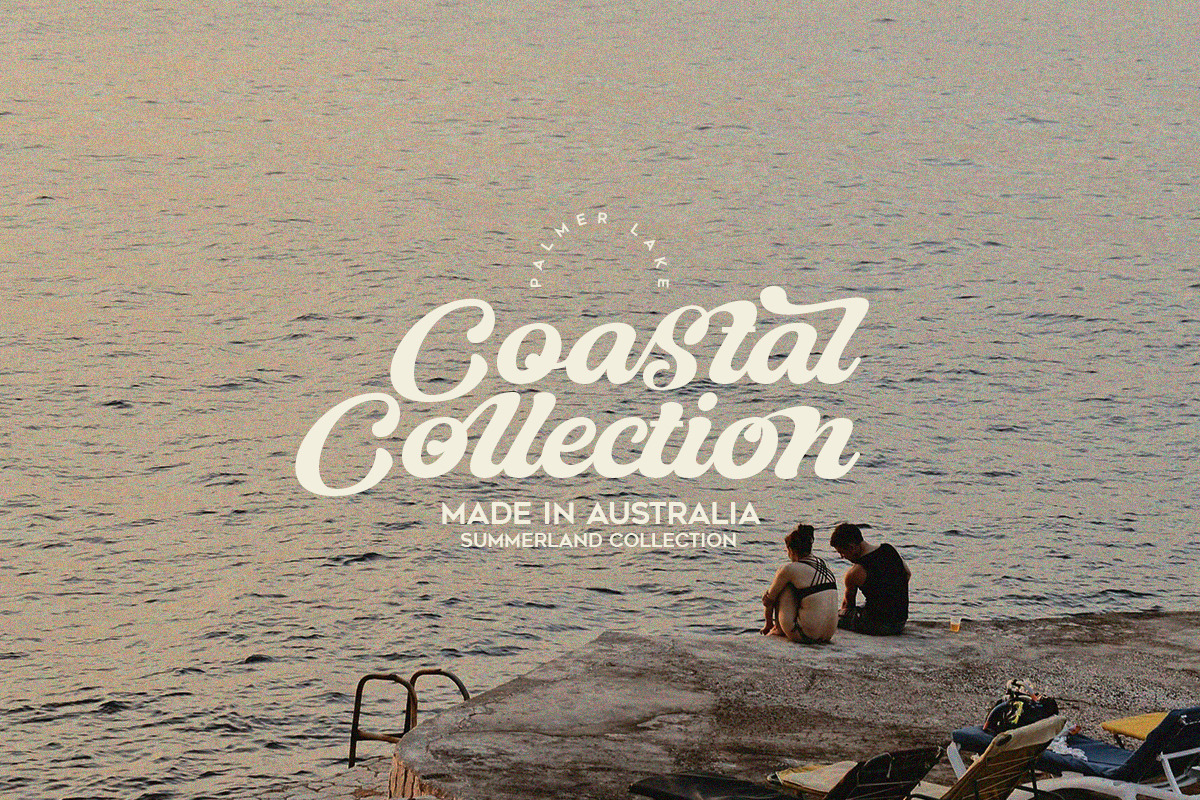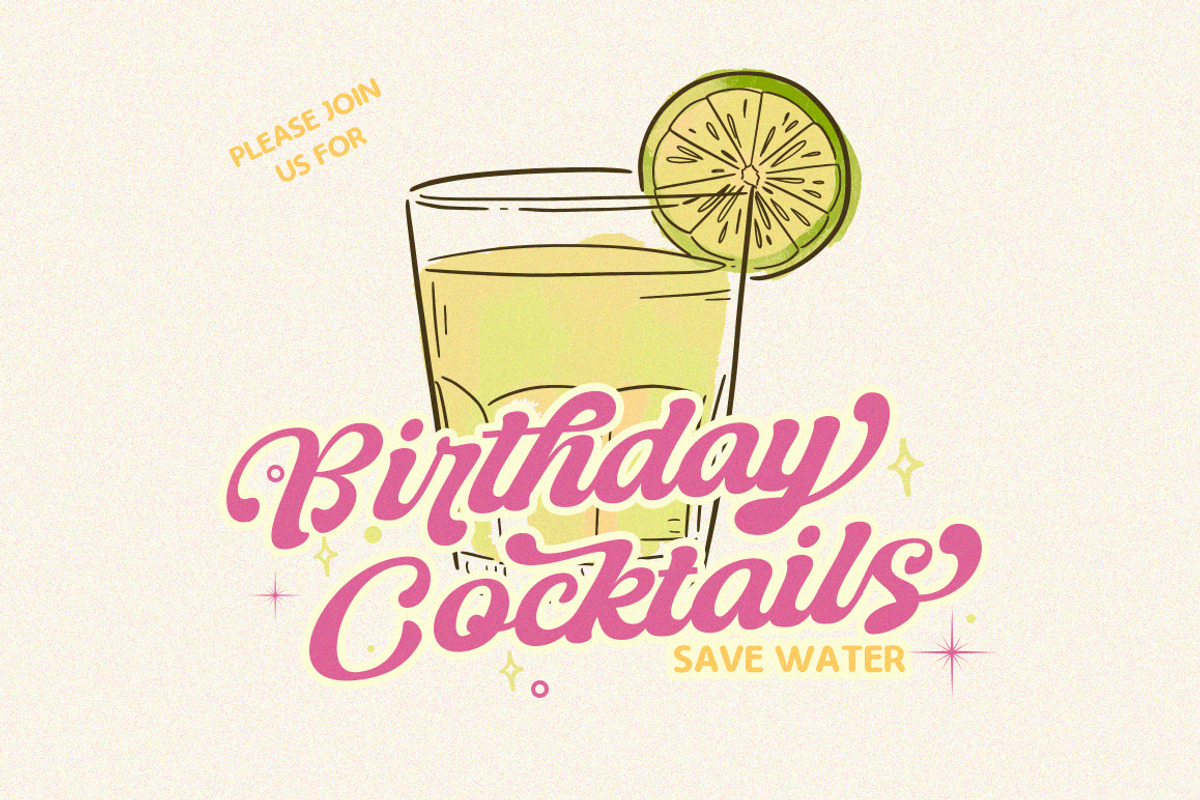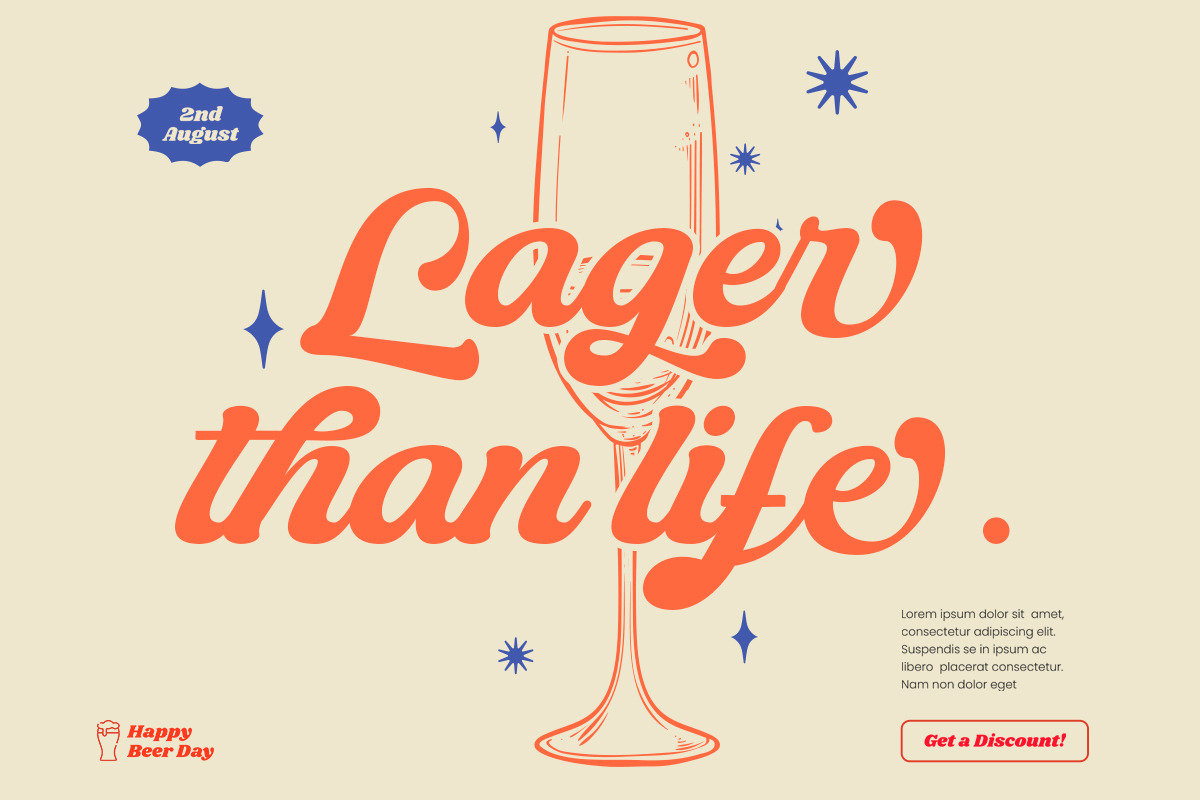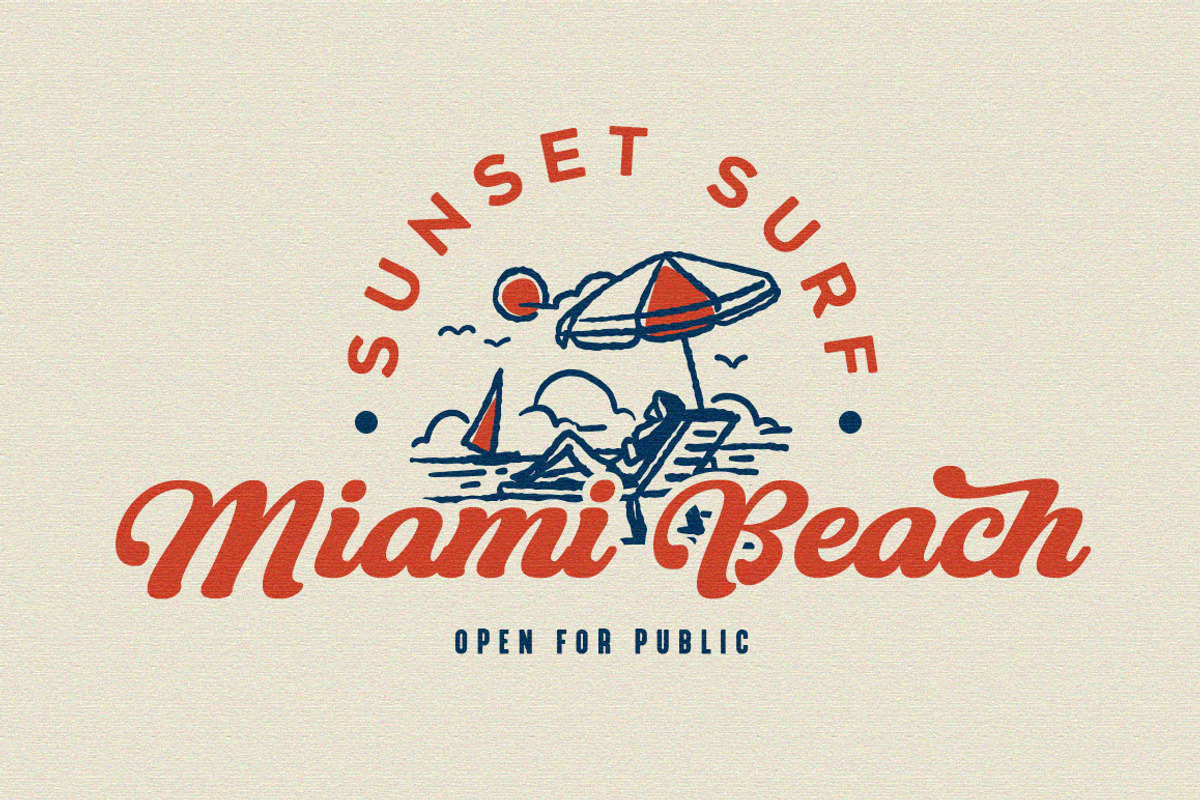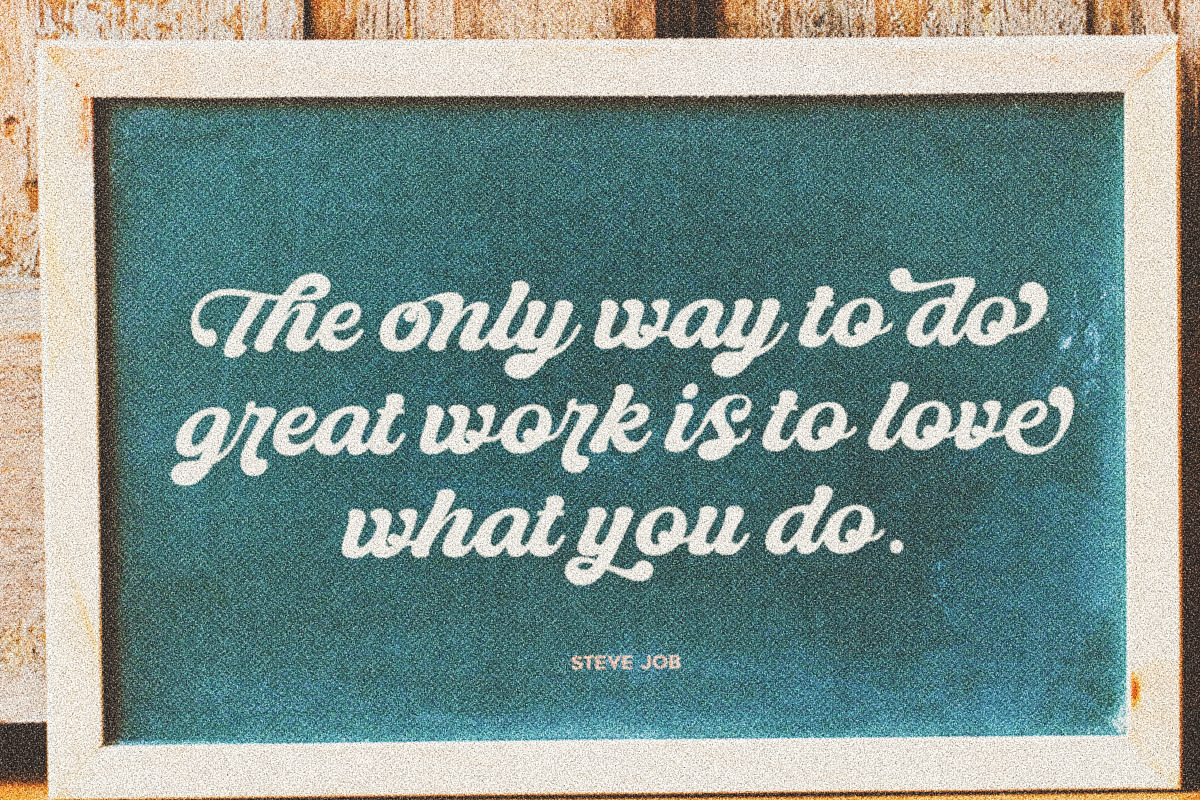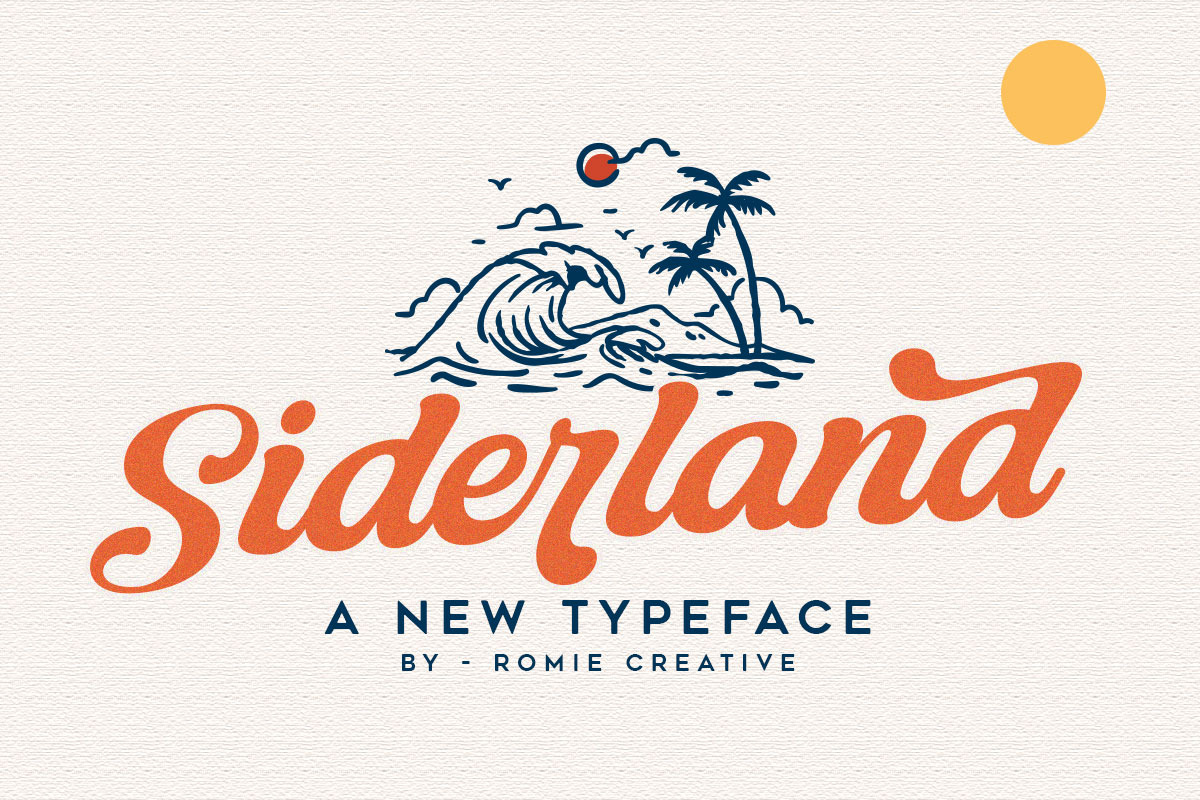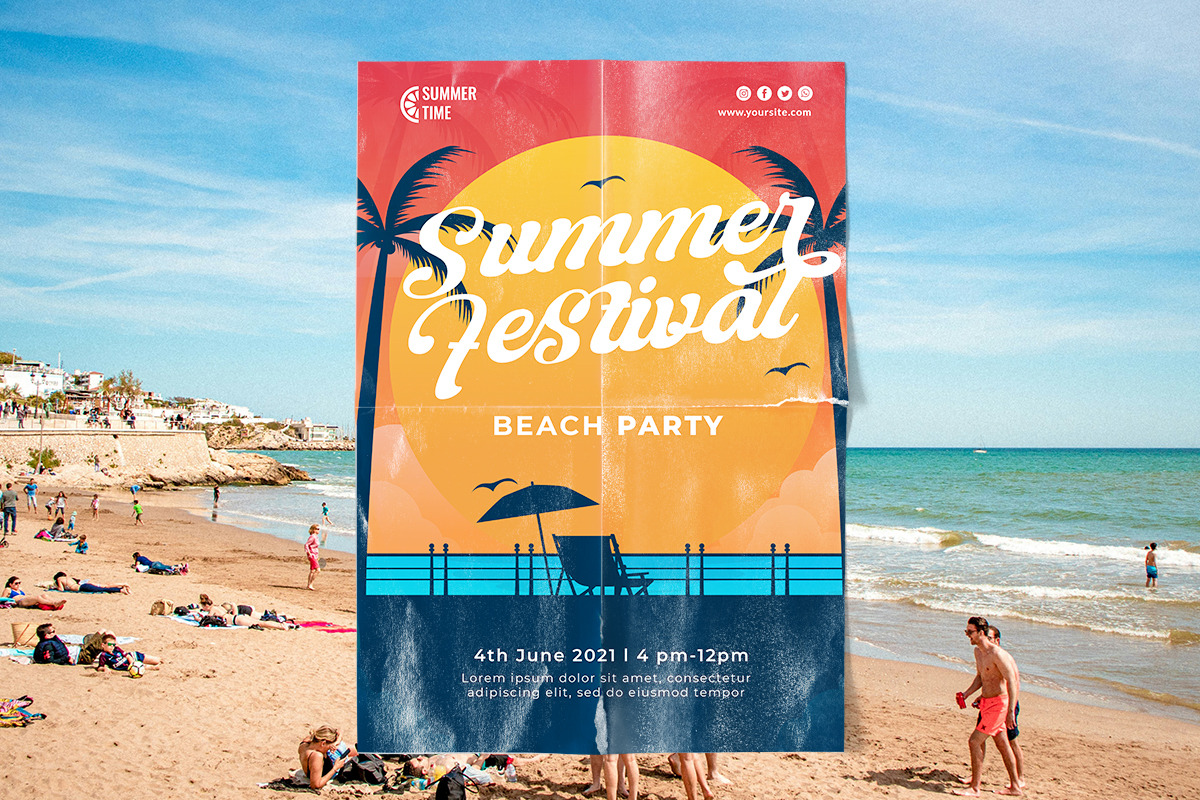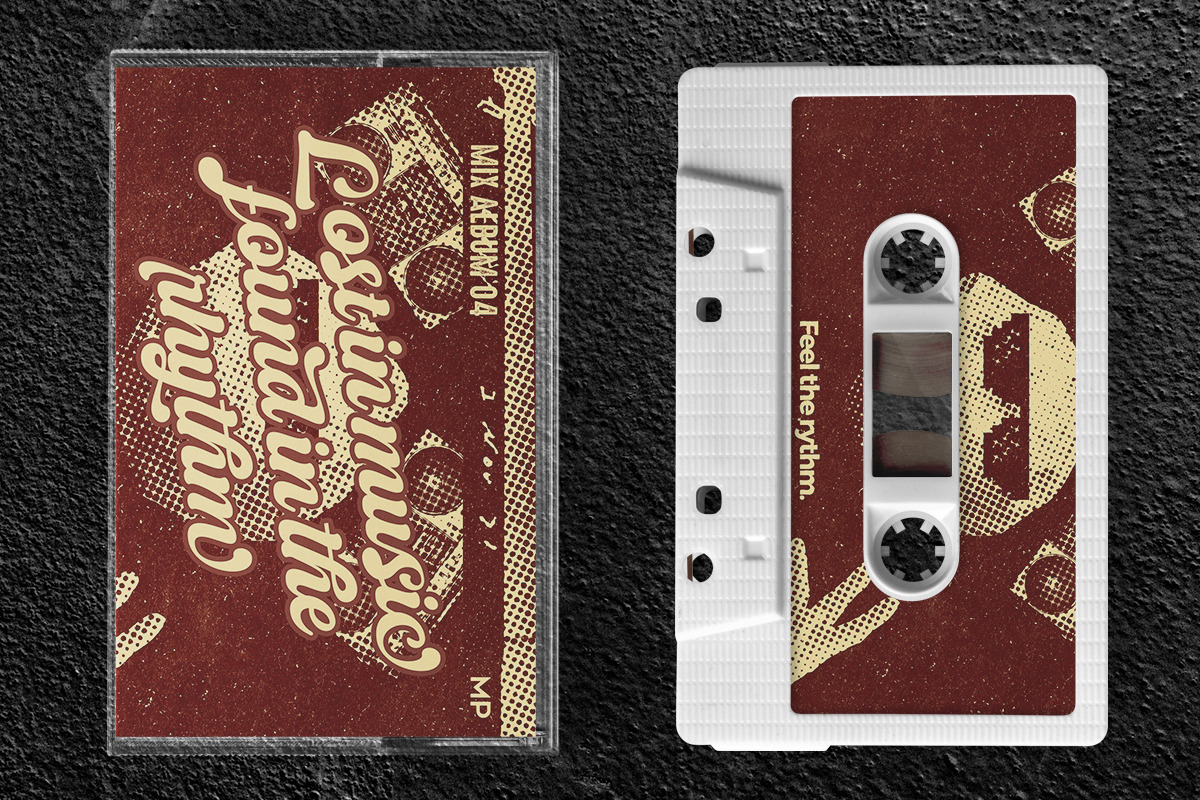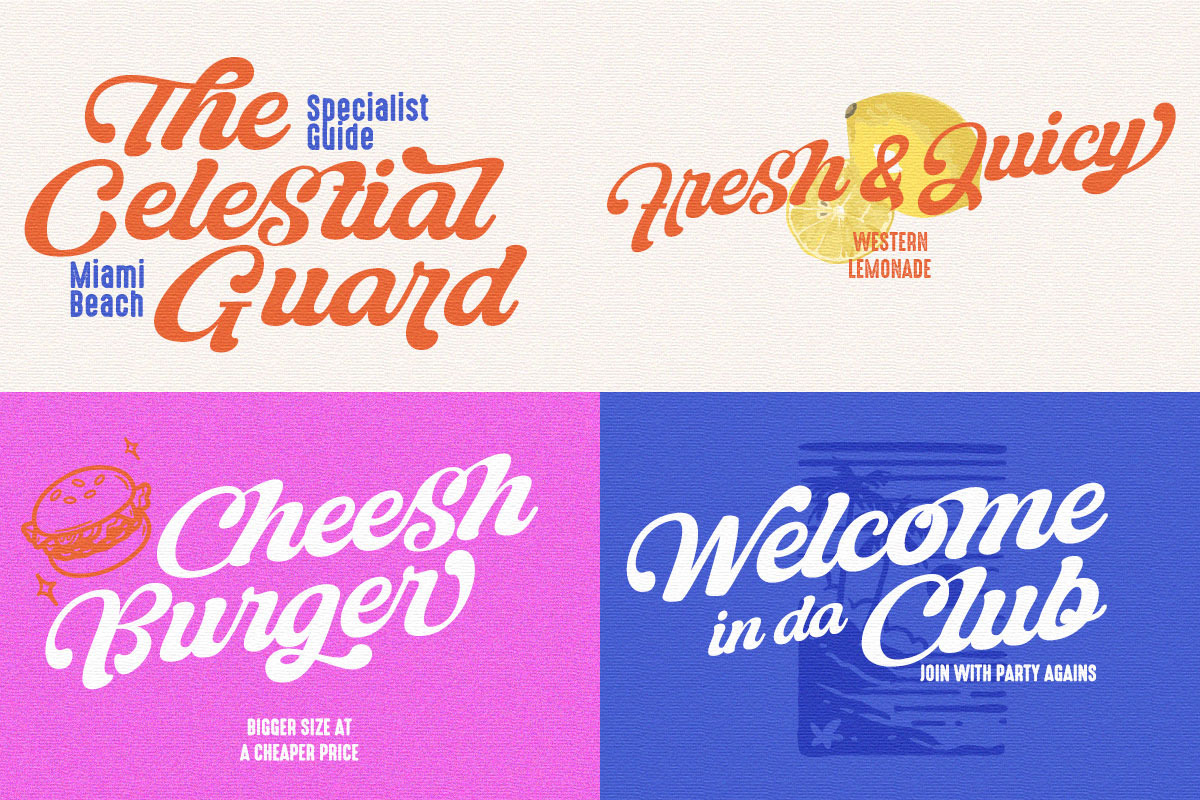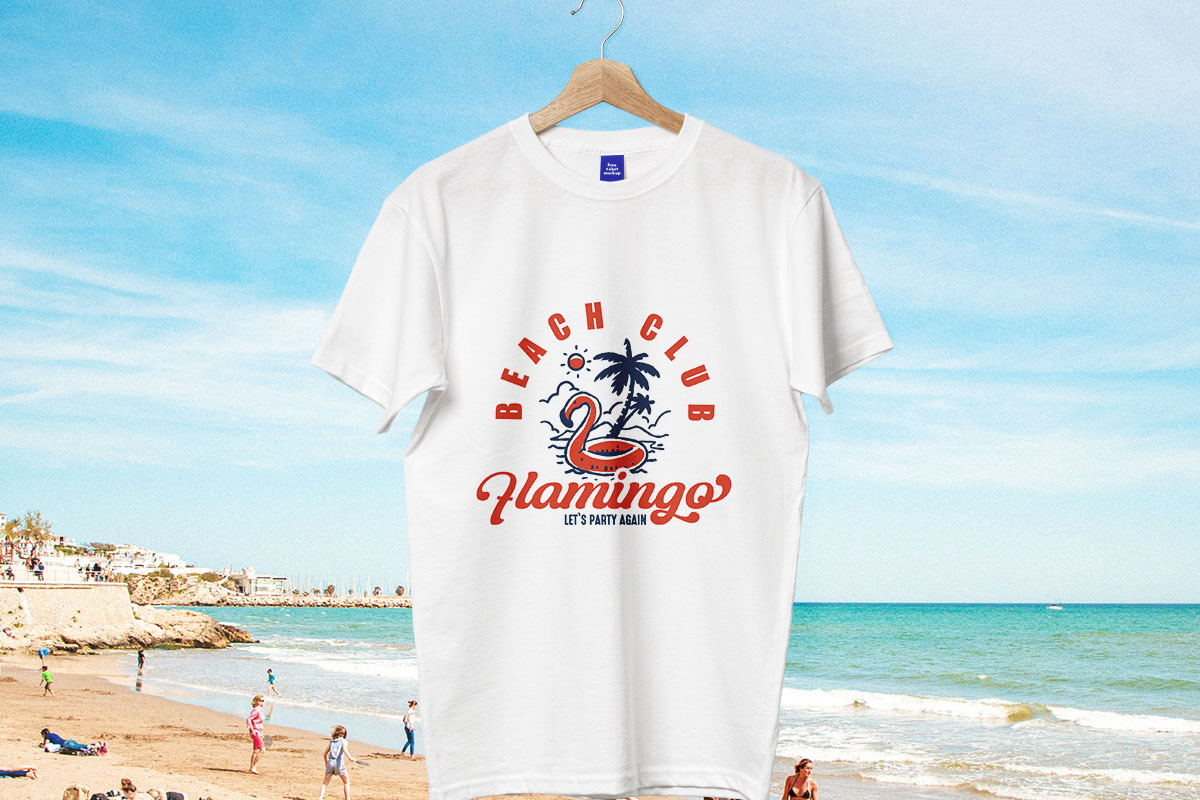
Siderland Typeface
Introducing the new Siderland Typeface which is a carefully crafted script typeface balanced with personality. You can use it as a logo, badge, emblem, packaging, title, poster, t-shirt/clothing, greeting card and wedding invitation.
Flowing characters are ideal for creating engaging messages. Mix and match the Siderland Typeface with a range of alternative characters to suit your project.